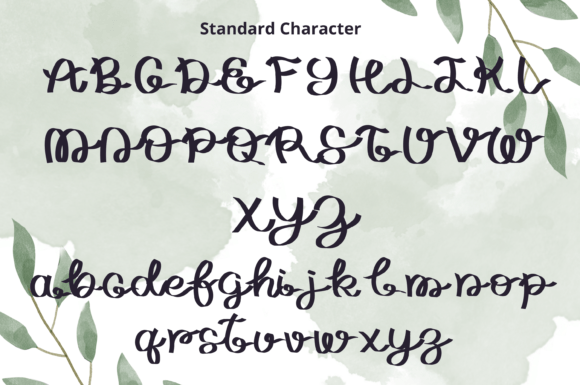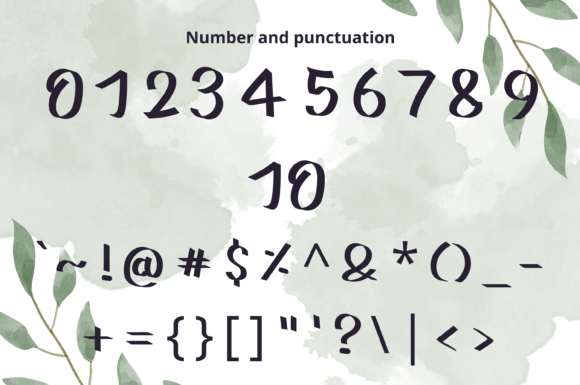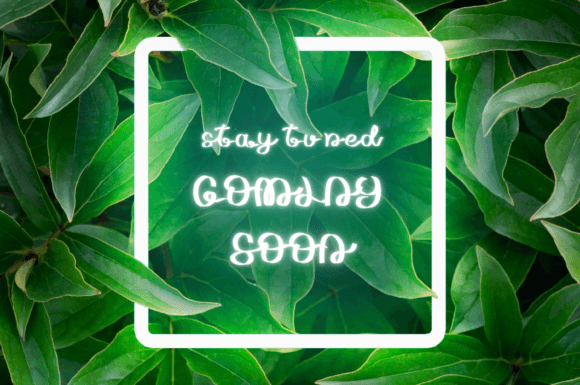
Introduction to Green Topaz Font
Do you remember the moment when a new design element clicks into place, and suddenly your creative project transforms from ordinary to extraordinary? For many designers, that moment is often sparked by discovering the perfect font. If you’re on the hunt for a font that adds a touch of whimsy and sophistication to your work, you’re in luck. Say hello to the enchanting Green Topaz Font, a free download that’s set to become your go-to design resource.
As a high-quality, handwritten font, Green Topaz Font offers a clean and elegant aesthetic that can be easily paired with a wide range of design styles. With its transparent background, it’s the perfect choice for creating eye-catching graphics and text overlays that add a touch of magic to your creative projects. Whether you’re working on a personal or professional project, this versatile font is sure to elevate your design game.
Key Features of Green Topaz Font
• High-quality design resource with a unique, elegant style suitable for creative projects.
• Features a transparent background, making it easy to layer over other design elements.
• Size: 1 font file with multiple styles, including bold, italic, and regular, to cater to diverse design needs.
• Perfect for designers and artists looking for a sophisticated and creative font to elevate their projects.
Honest Review: Green Topaz Font
I recently had the chance to work with the Green Topaz Font, and I must say it’s been a game-changer for my creative projects. The font’s unique style and high quality make it an excellent addition to any design.
• ✨ The font’s transparent background makes it incredibly versatile and easy to use.
• ✨ The font’s high quality is evident in its crisp lines and smooth curves.
• ⚠️ The font’s weight is somewhat limited, making it difficult to use for titles or headlines.
• ⚠️ The font’s lack of italics is a drawback for designers who need to create italics for their project.
Overall, I’m thoroughly impressed with the Green Topaz Font. It’s a fantastic design resource that’s perfect for creative projects. While it may have some limitations, the benefits far outweigh the drawbacks. I highly recommend giving it a try!
To get the most out of the Green Topaz Font, use it in combination with a transparent background to create a subtle and stylish design. Experiment with different font sizes and colors to find the perfect look for your creative project.
The Green Topaz Font is commonly used in wedding invitations, branding materials, and social media graphics. Its unique design and high-quality aesthetic make it a popular choice for designers and non-designers alike.
Alternatives to Green Topaz Font
Pacifico is a high-quality, elegant script font ideal for creative projects that require a touch of sophistication. It’s perfect for designing wedding invitations, menus, and other materials where a refined look is desired. Unlike Green Topaz Font, Pacifico has a more subtle and refined feel, making it suitable for a wider range of design applications.
Great Vibes is a modern, cursive font that’s perfect for creating eye-catching designs with a transparent background. It’s ideal for social media graphics, posters, and other visual materials where a playful, energetic feel is required. Compared to Green Topaz Font, Great Vibes has a more vibrant and dynamic personality, making it perfect for creative projects that demand attention.
Carolyna Pro is a high-quality, modern sans-serif font that’s perfect for designing creative projects with a clean and minimalist aesthetic. It’s ideal for logos, business cards, and other materials where a professional look is desired. Unlike Green Topaz Font, Carolyna Pro has a more modern and sleek feel, making it suitable for a wide range of design applications.